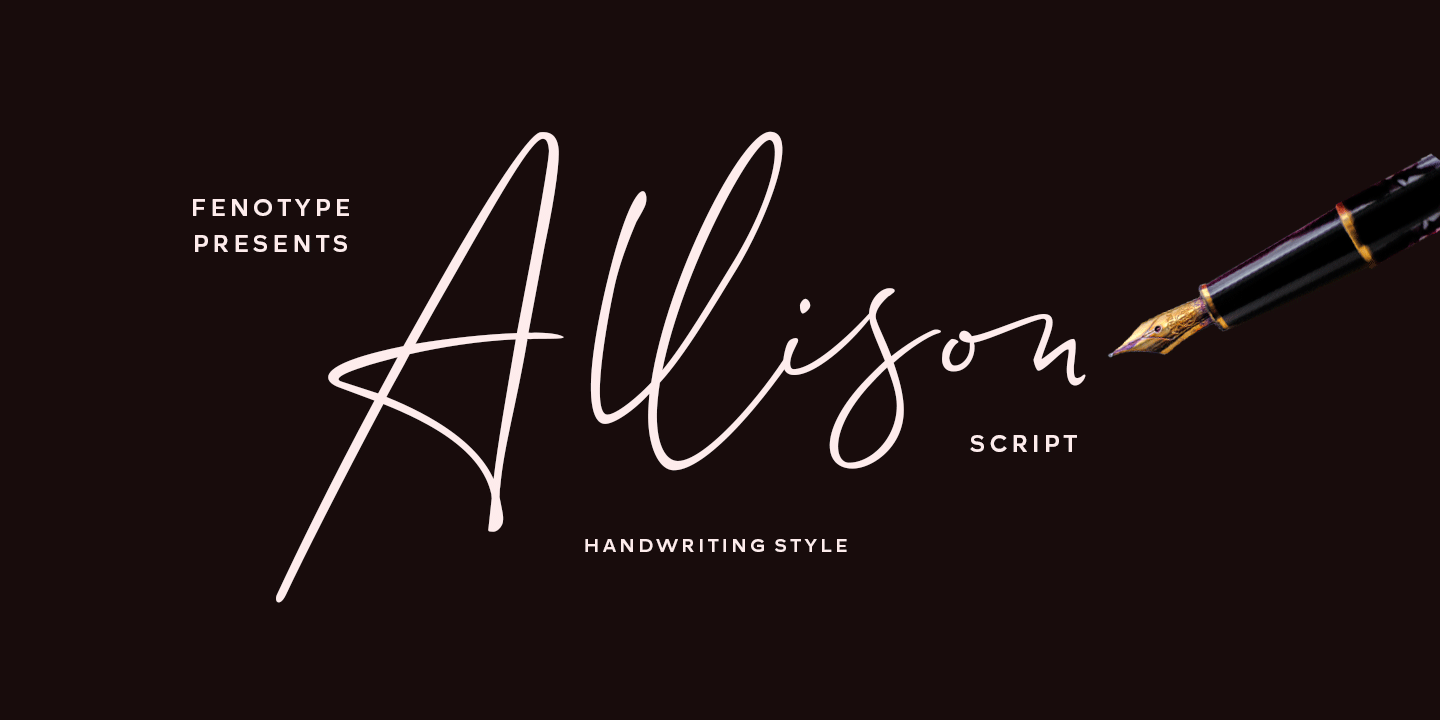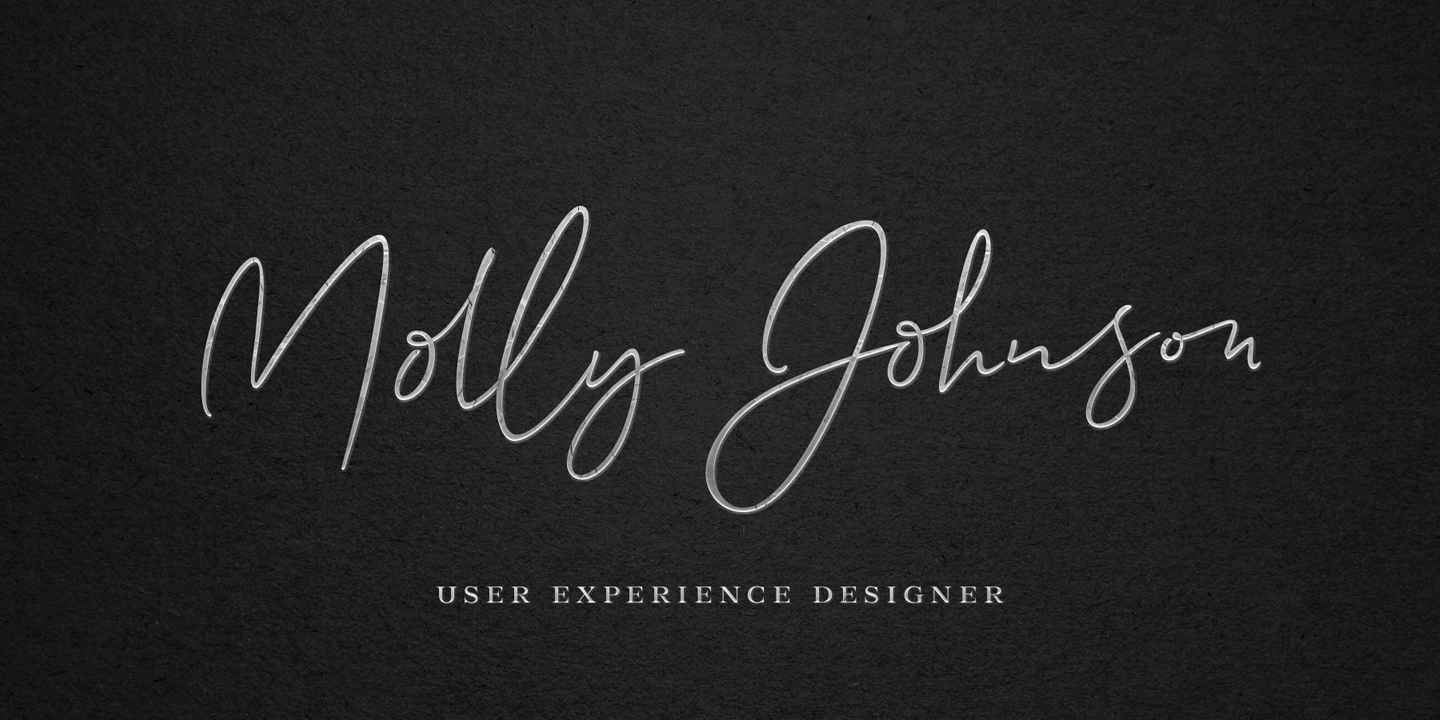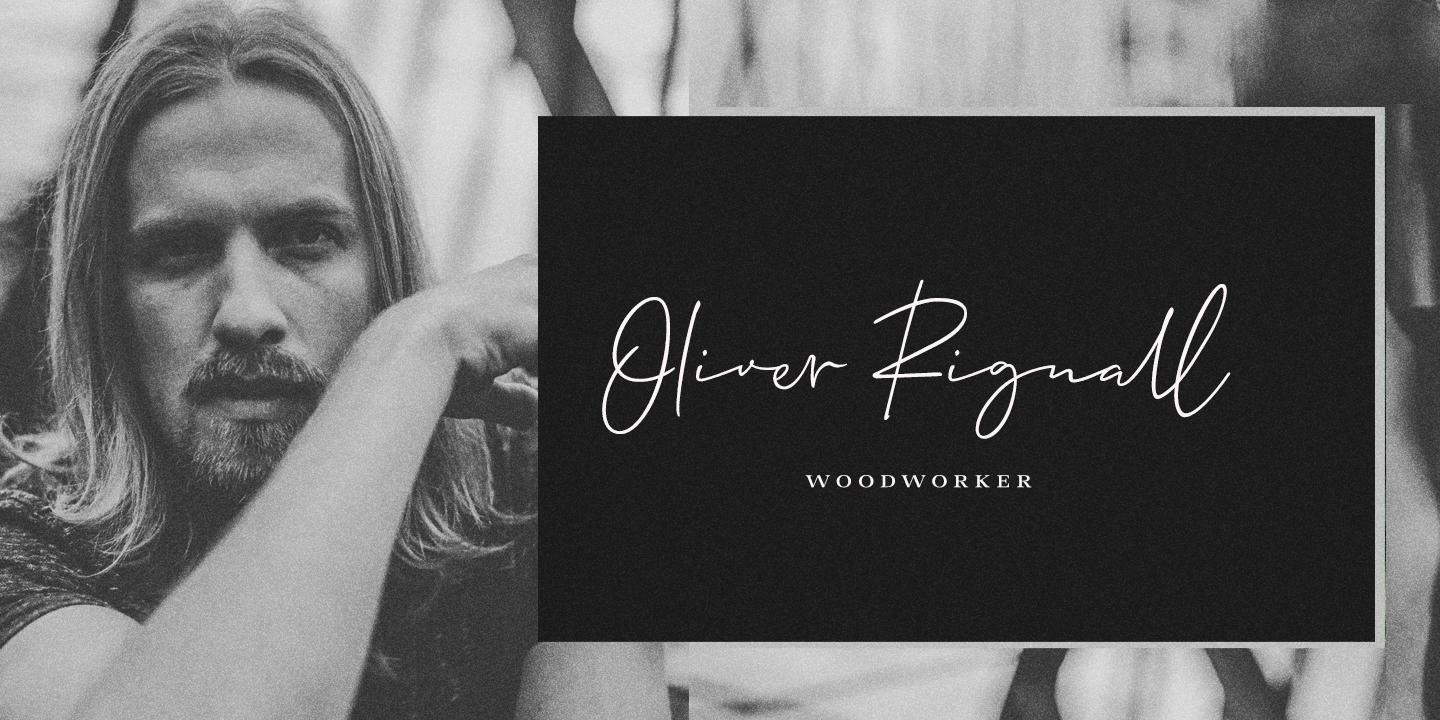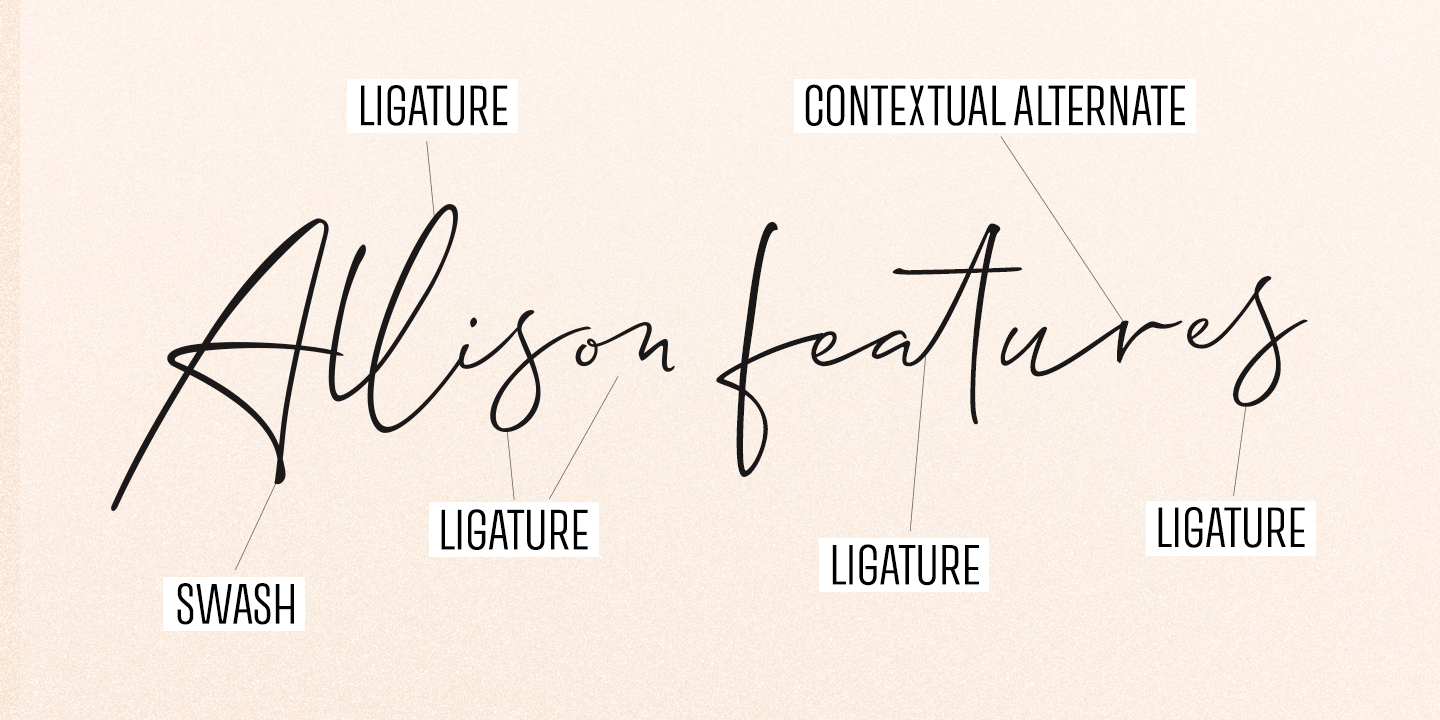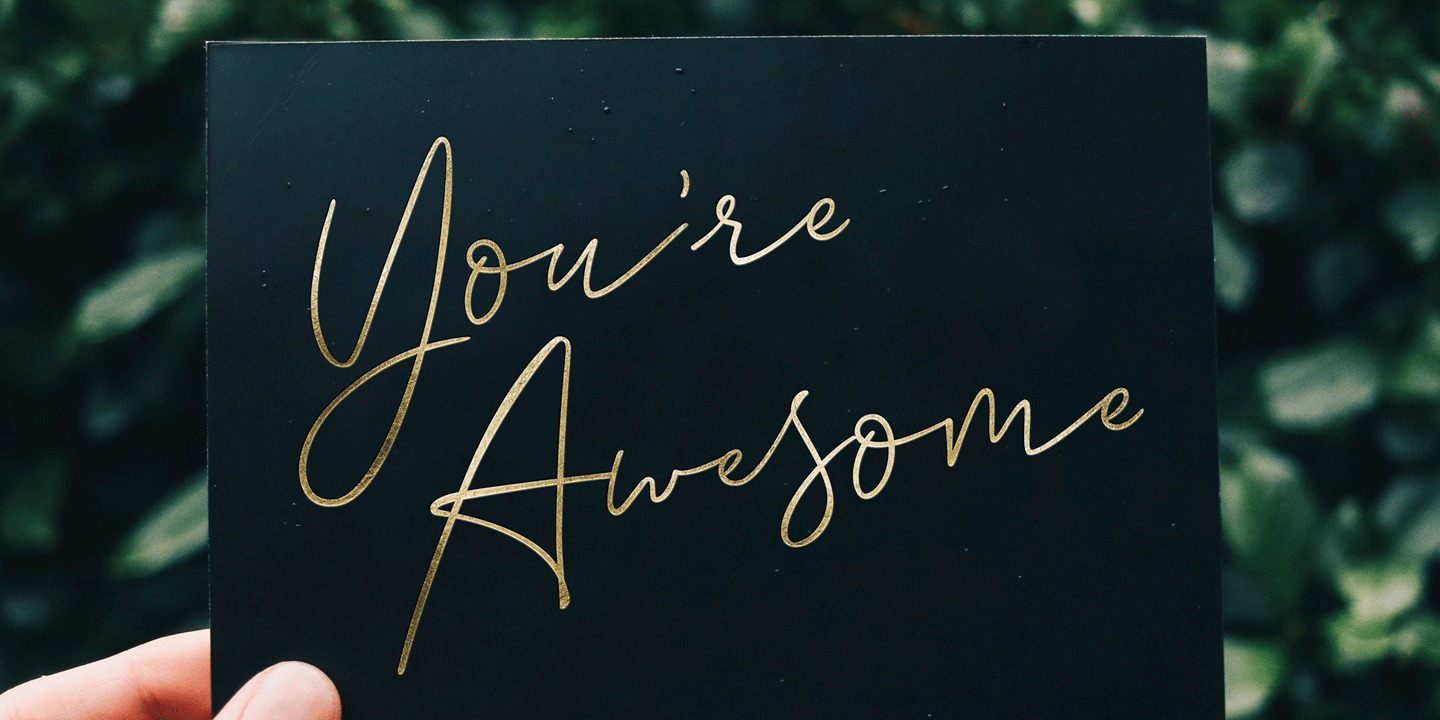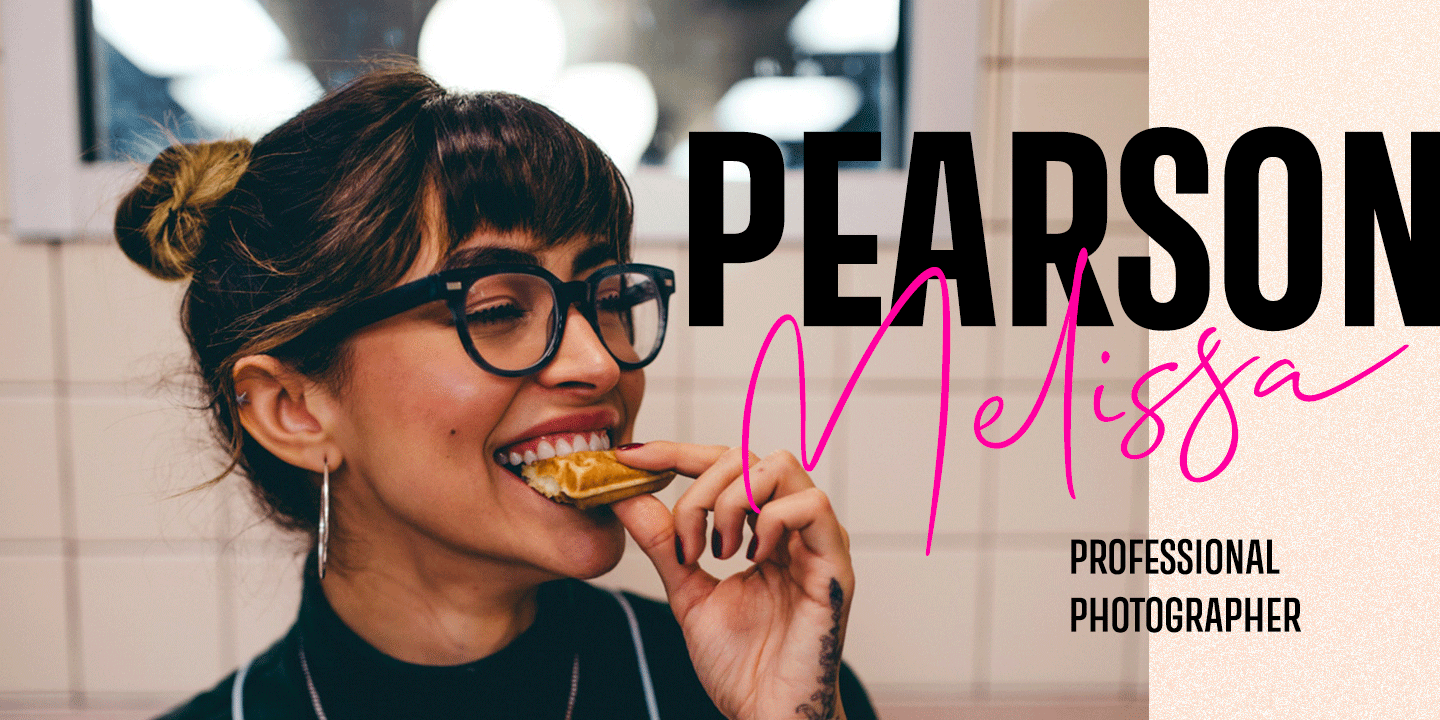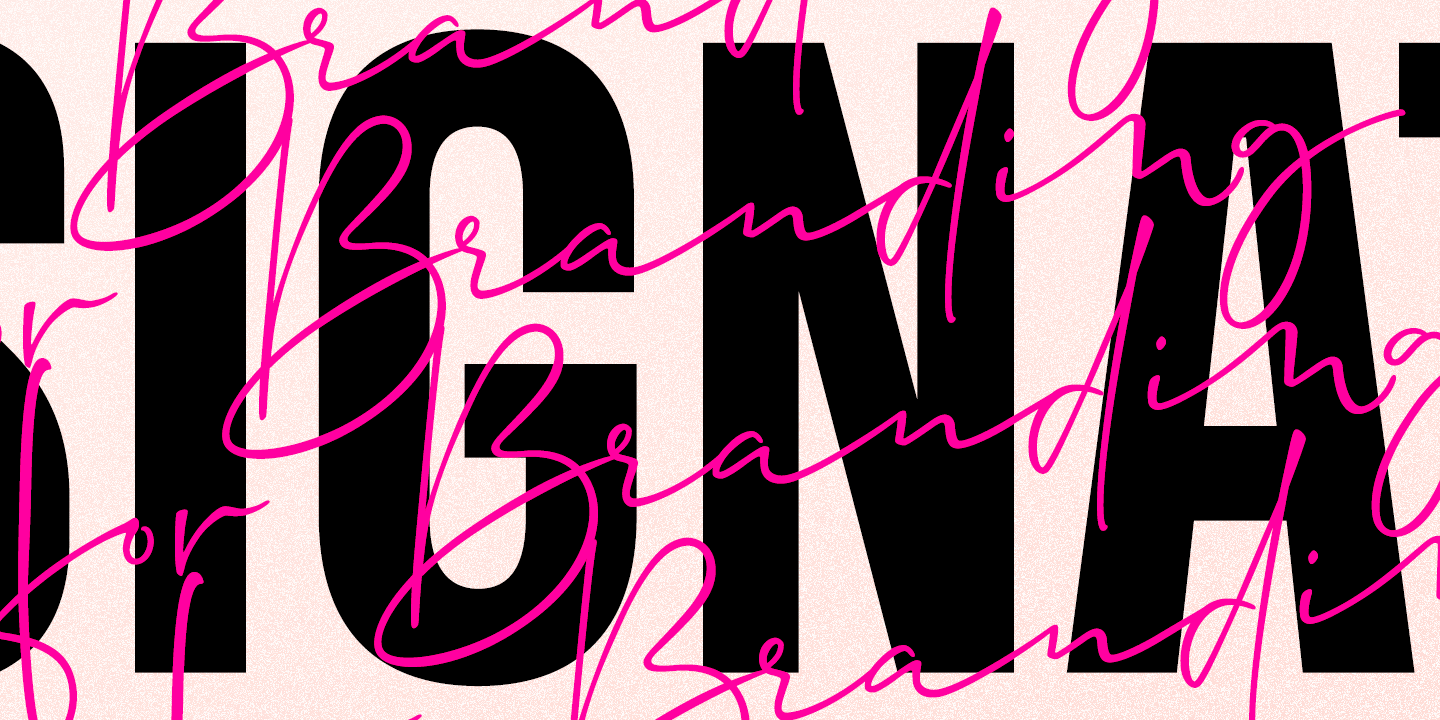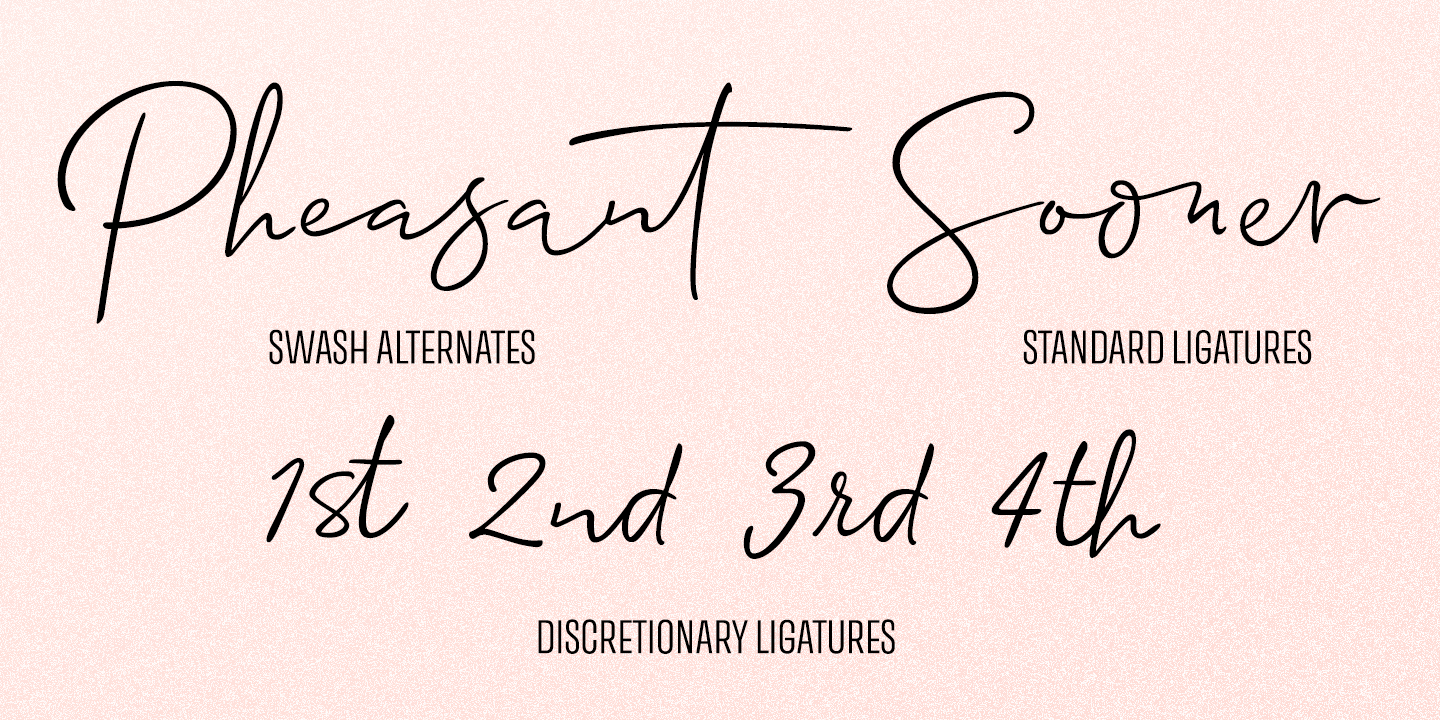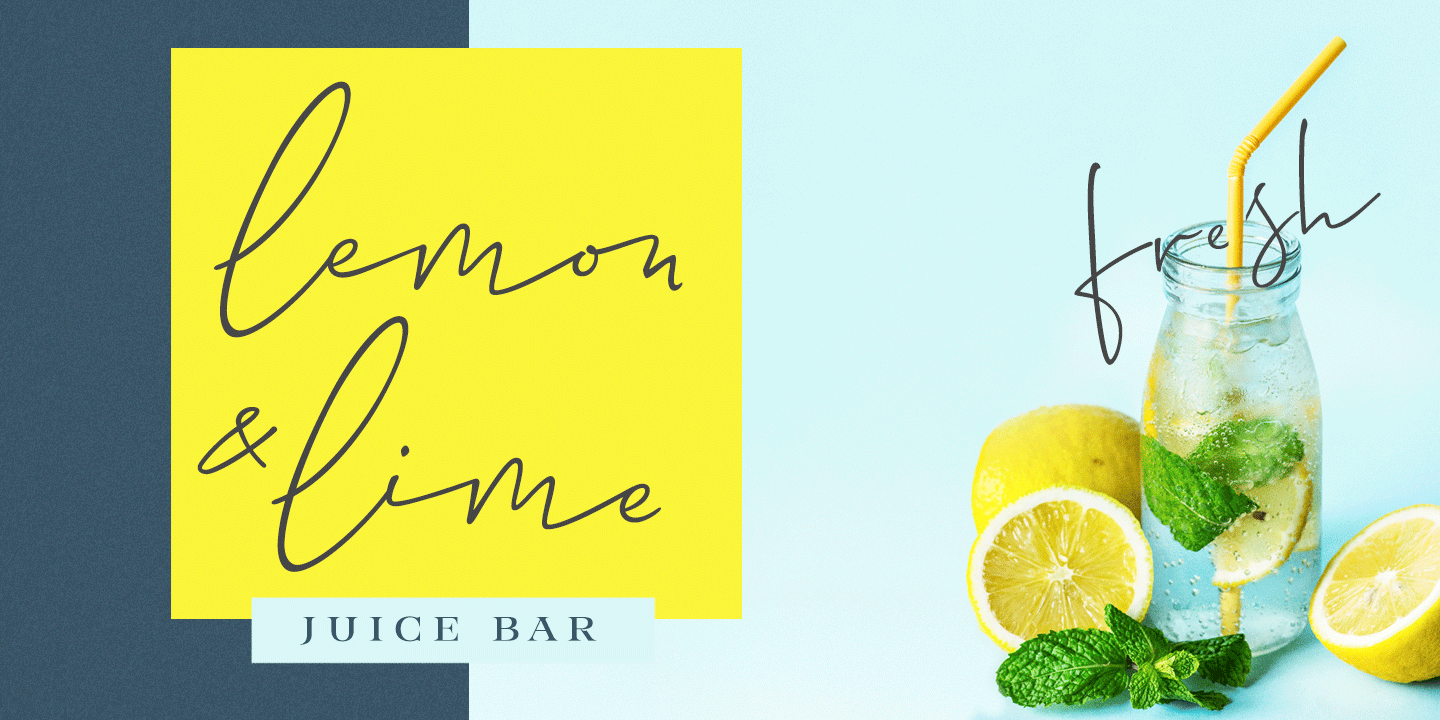
Allison Script
Font Family by Fenotype
Allison is a hand drawn signature style Script. Allison is great for branding, headlines, invitation cards or even as a logotype. Allison is equipped with over 100 Contextual Alternates and Standard Ligatures to keep the flow vivid and maintain hand drawn impression. These features are automatically ON, all you need to do is type! In addition Allison has Swash alternates for every standard character in case you need some extra flair. From Discretionary Ligatures you'll find 'st', 'nd', 'rd' and 'th' ligatures designed to be used with numbers.
Allison Script is PUA encoded and you can access extra glyphs in any graphic design software.